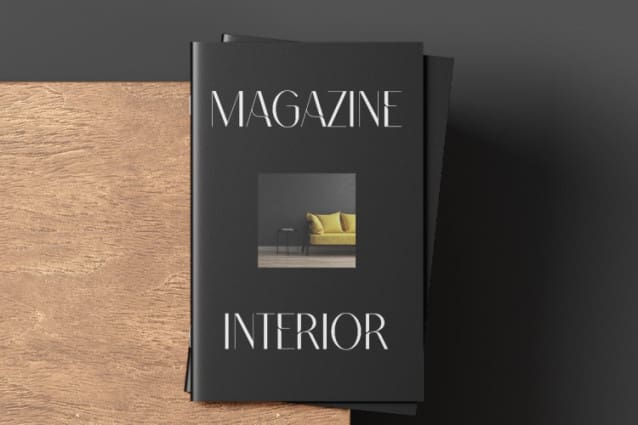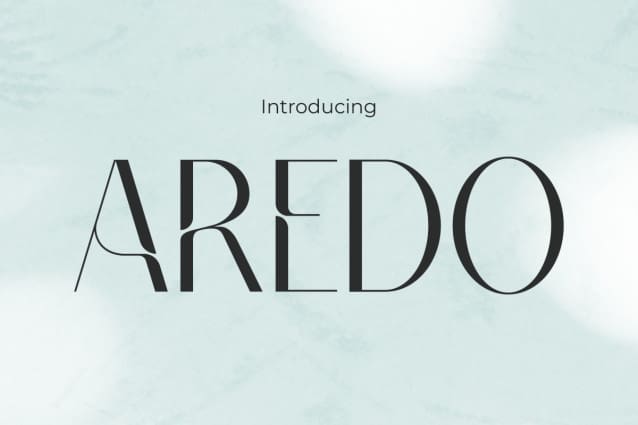
Aredo Font
Aredo Font, the epitome of timeless elegance and sophistication. Designed to elevate any project with its graceful curves and refined strokes, AREDOFont effortlessly captures attention and adds a touch of class to your designs. Whether you’re creating wedding invitations, luxury branding, or elegant editorial layouts, this font exudes an air of exclusivity and charm that sets your work apart.
With Aredo Font, every letter speaks volumes of sophistication and refinement. Its sleek lines and subtle details evoke a sense of luxury, making it the perfect choice for high-end branding projects and upscale design endeavors. Elevate your designs to new heights of elegance and style with AREDOFont, where every word becomes a masterpiece of sophistication.